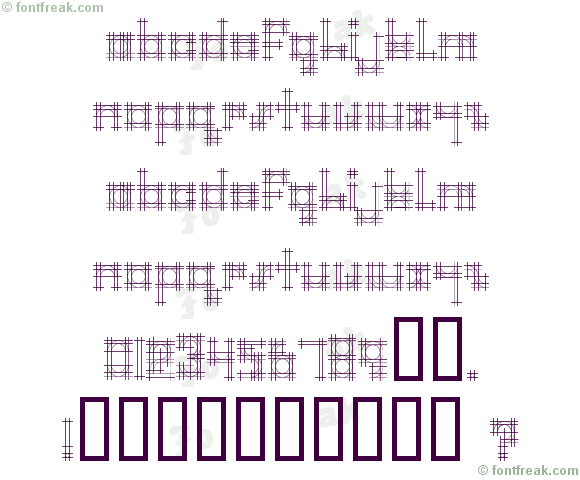
Bauhaus Sketch
About Bauhaus Sketch
Bauhaus Sketch is a distinctive display typeface designed by Matt Perkins under the Typography In Decay label. As a freeware font, it embodies a unique blend of Bauhaus-inspired aesthetics with a hand-drawn, sketch-like quality. This font is categorized as a decorative typeface, making it ideal for projects that require a touch of creativity and artistic flair.
Visually, Bauhaus Sketch features a playful and irregular stroke weight, giving it an informal and approachable appearance. The design exhibits minimal contrast, with a consistent line thickness that enhances its sketchy character. The spacing is generally open, which allows each letter to breathe, contributing to a light and airy feel. The decorative elements are subtle yet effective, reminiscent of rough sketches, making it a standout choice for artistic endeavors.
This font is particularly well-suited for various applications, including creative wedding invitations that call for a personal touch, eye-catching movie posters that aim to capture attention, stylish restaurant menus that convey a contemporary vibe, and engaging social media graphics that resonate with audiences. Its versatility makes it a valuable asset for graphic designers, small business owners, and content creators looking to infuse their work with a unique visual style.
What sets the Bauhaus Sketch font apart is its ability to blend the structured principles of Bauhaus design with a whimsical, freehand aesthetic. This combination not only makes it visually appealing but also invites viewers to engage with the content on a more personal level. For those interested in enhancing their projects with this creative typeface, a Bauhaus Sketch font free download is readily available, allowing you to explore its potential without any cost.